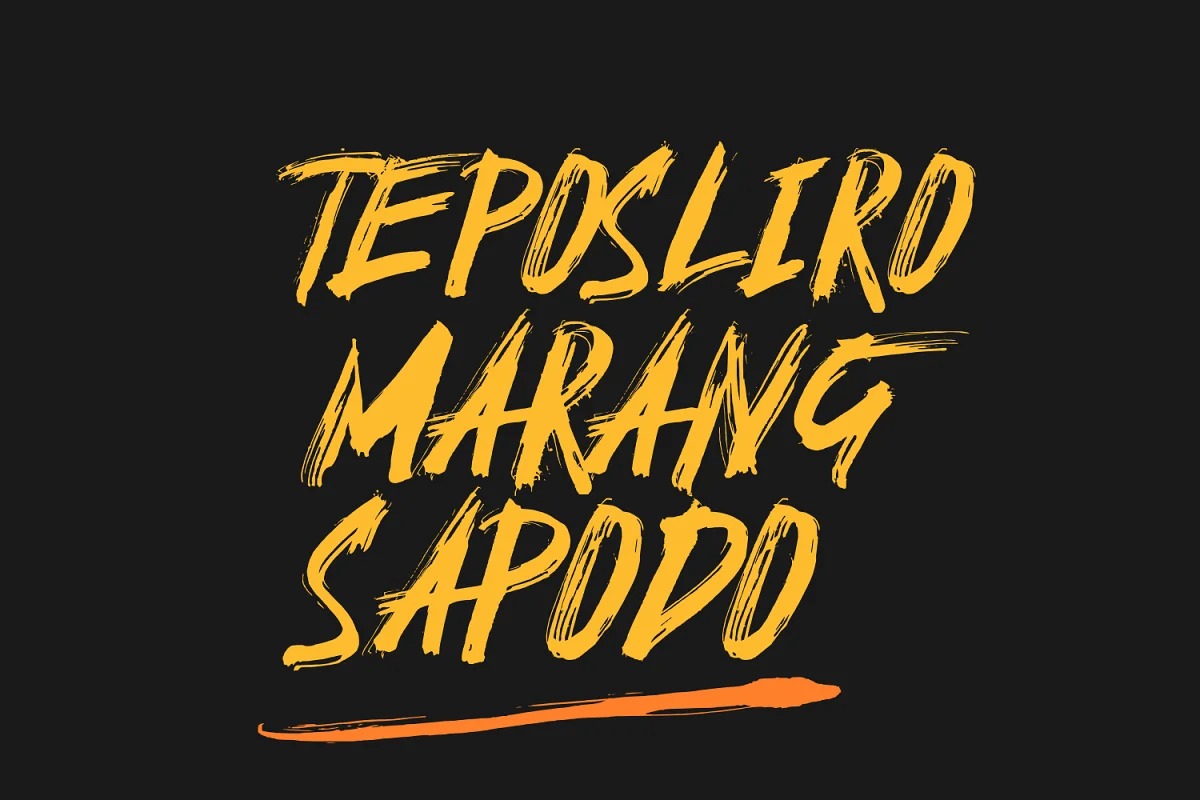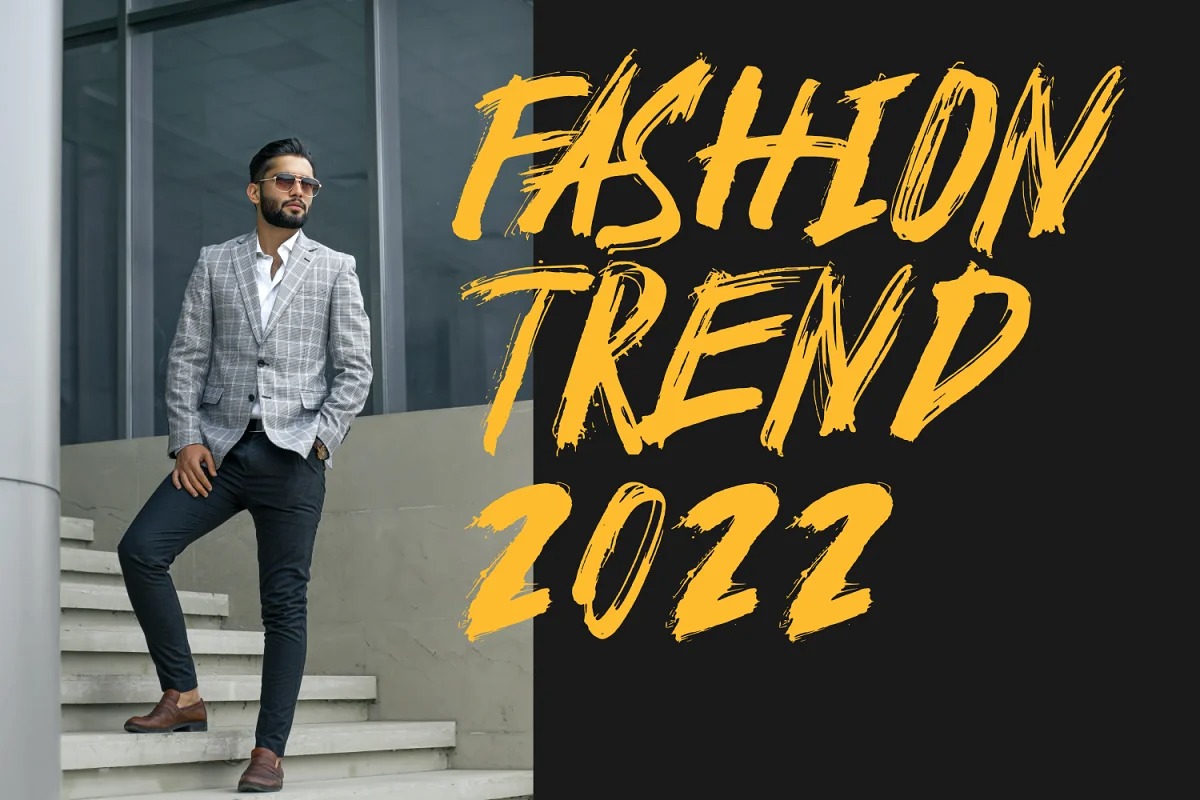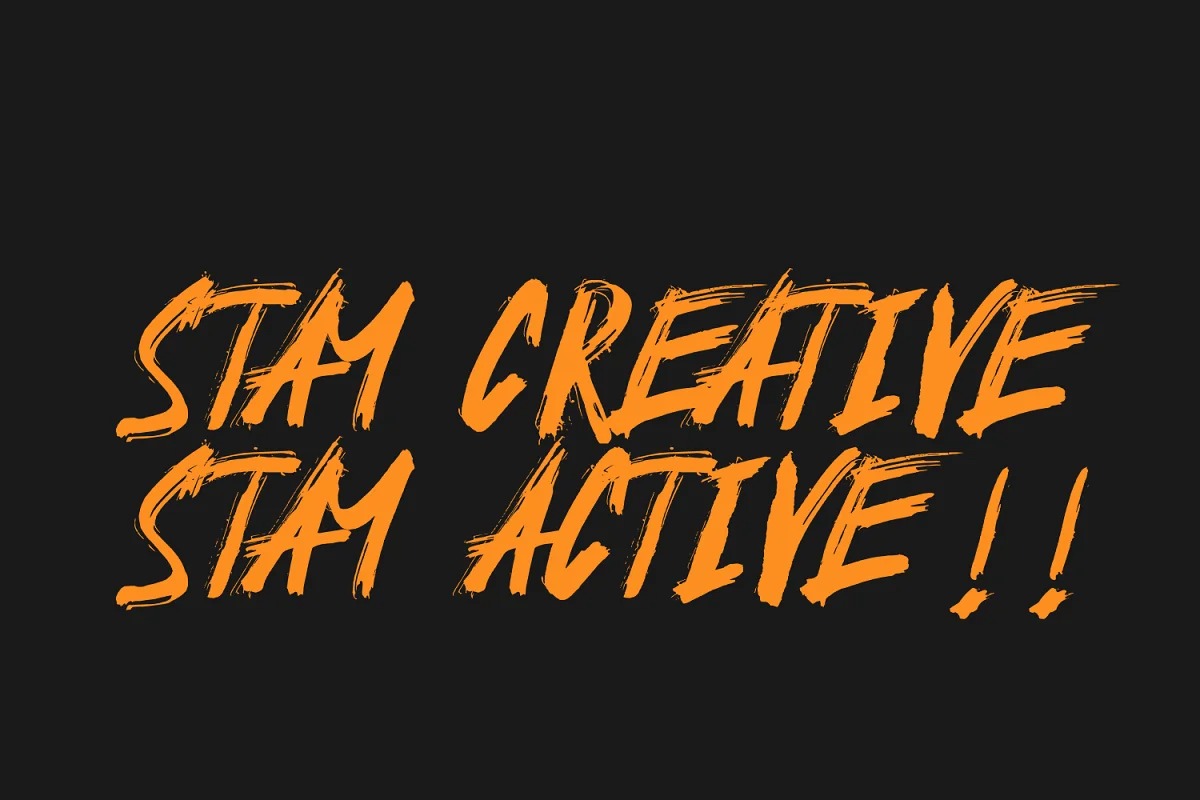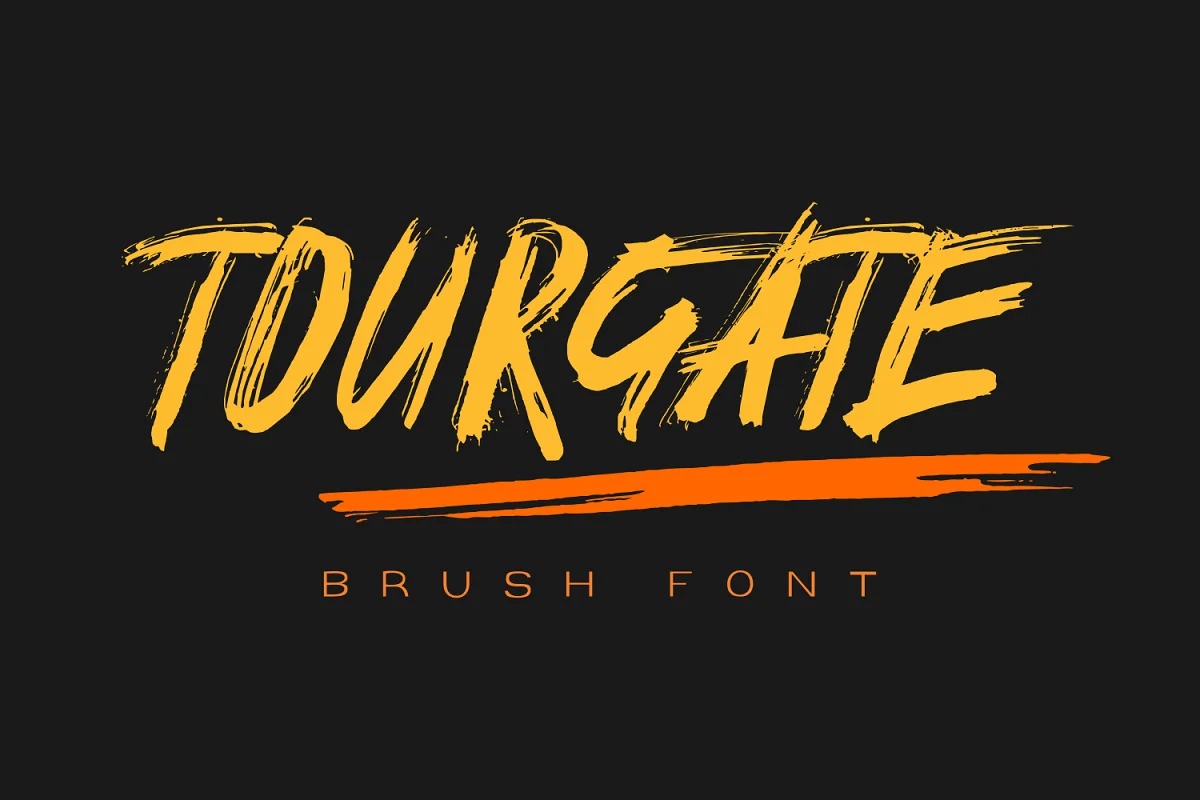
Tourgate Brush Font
This font is a handwritten display brush typeface. It’s designed and shared by Mozyen Studio. This font model is suitable for you to use for product branding, logo branding, book titles,t-shirts, sportswear, logos, advertisements, clothing, and more.